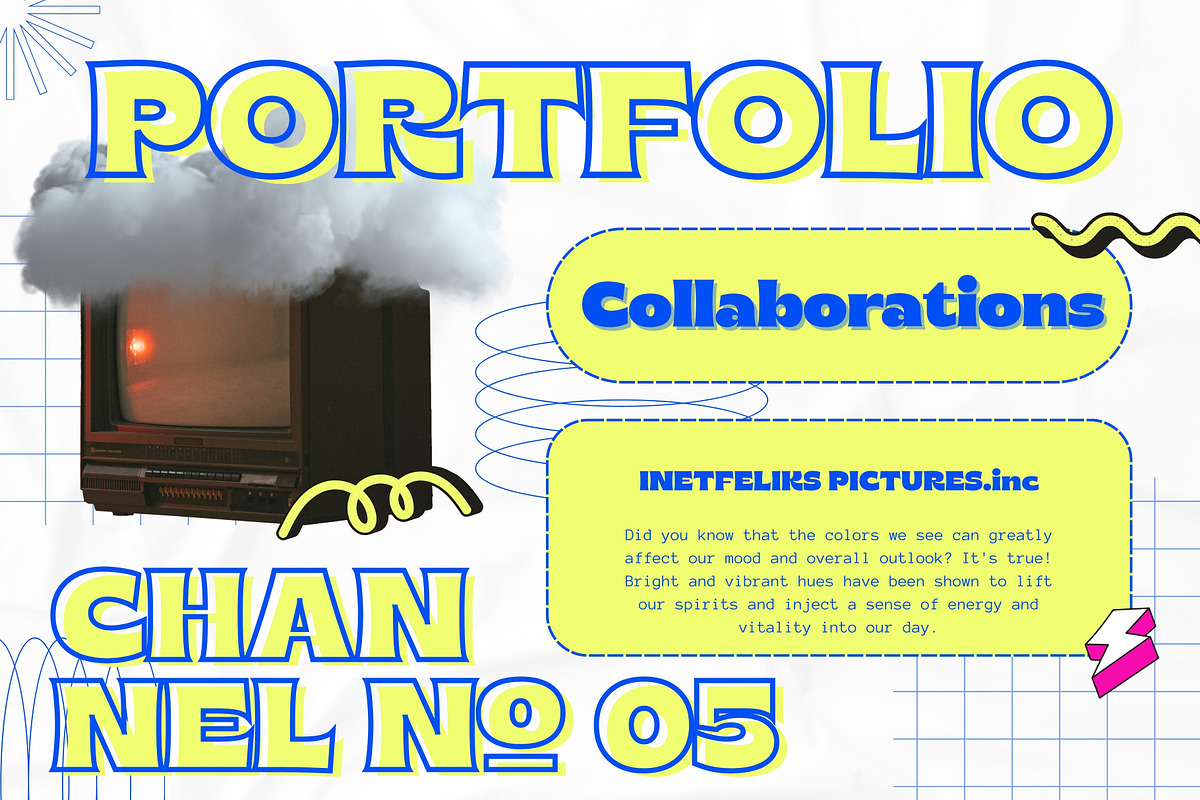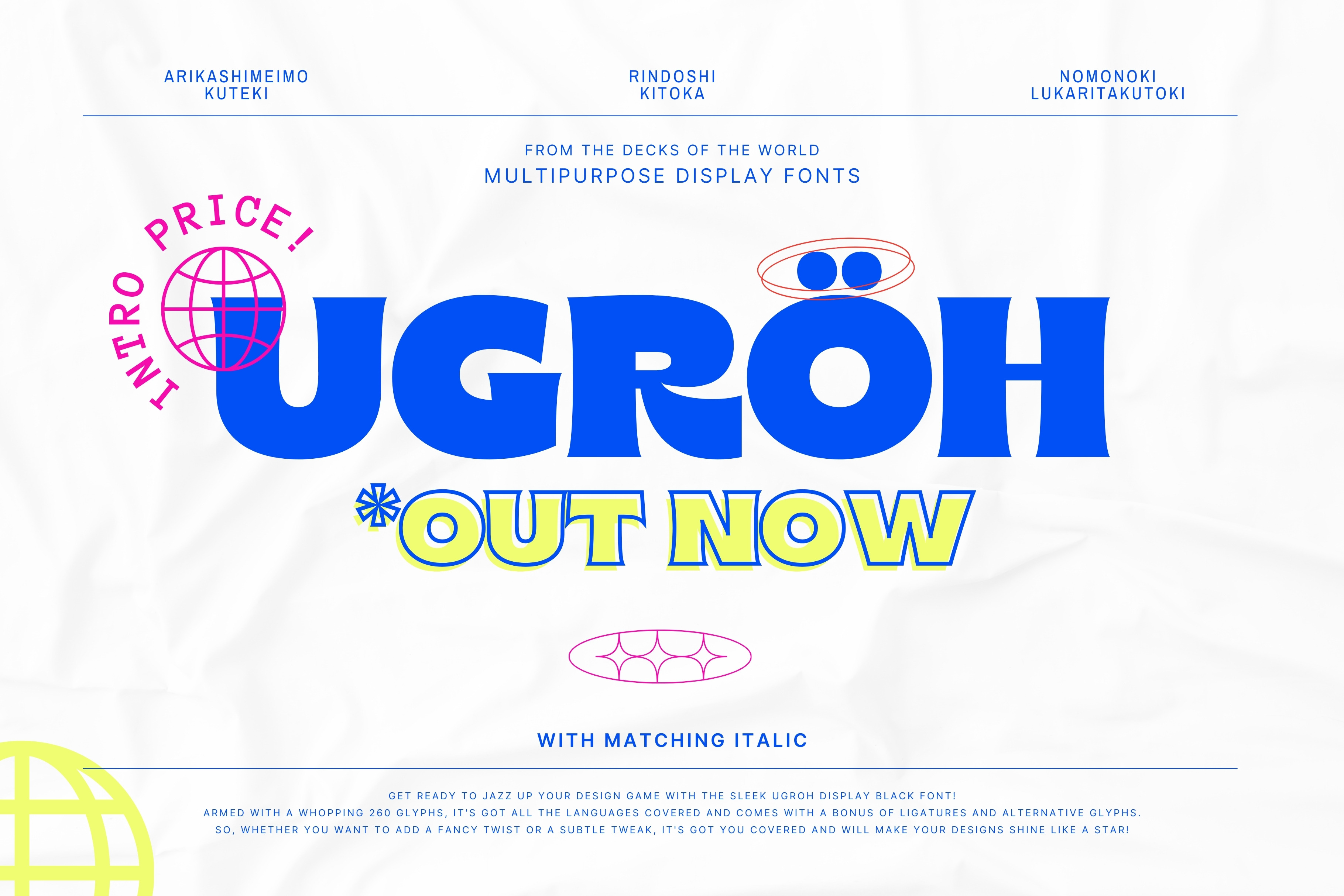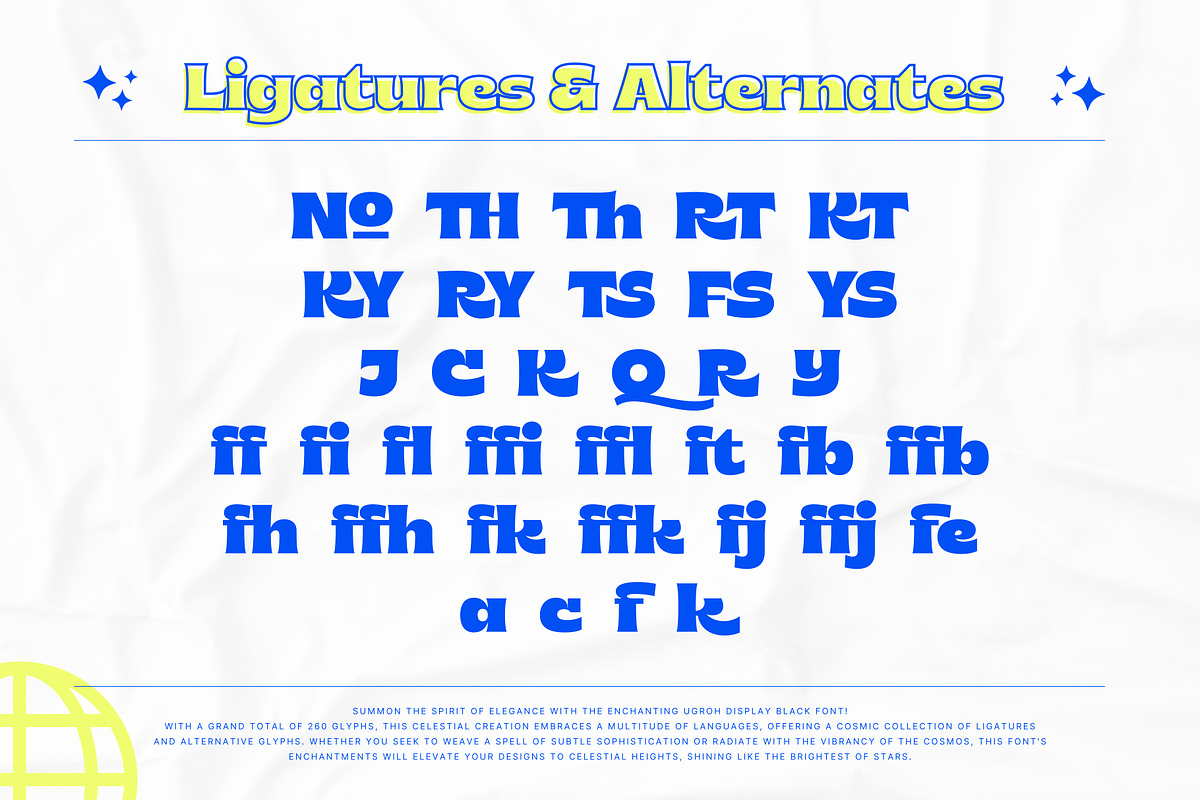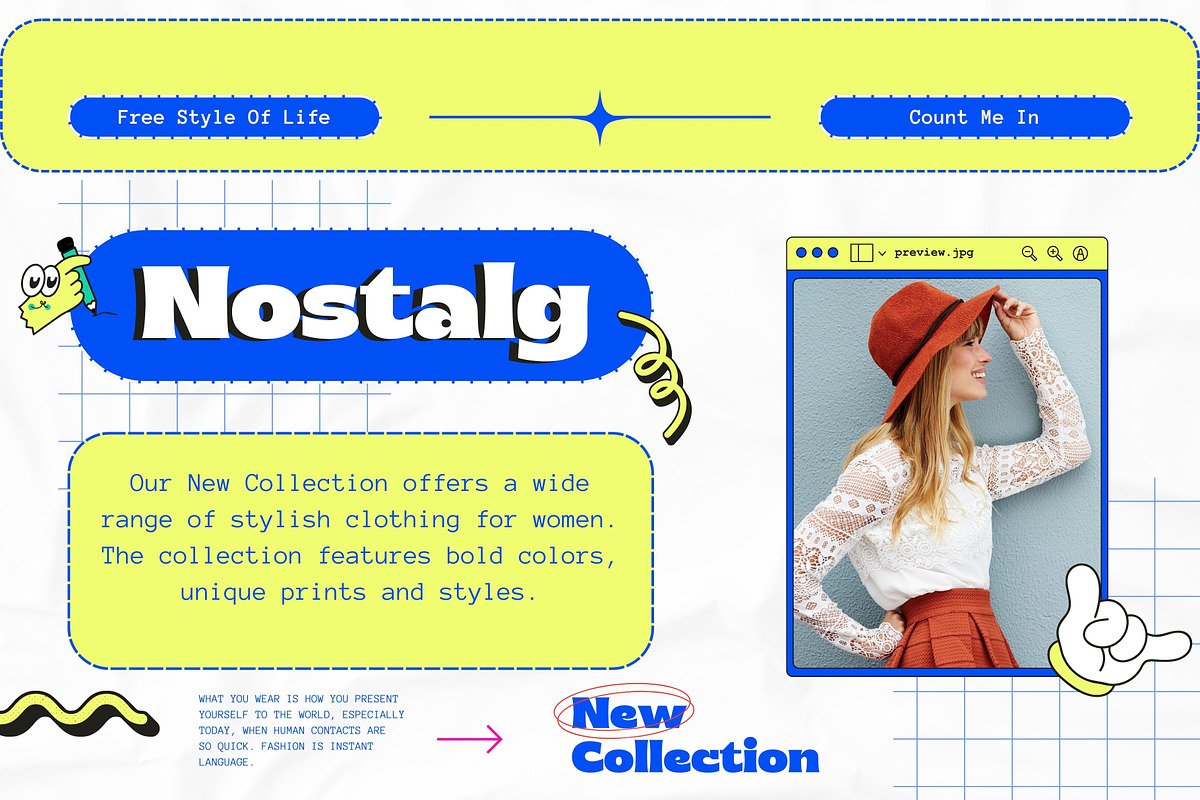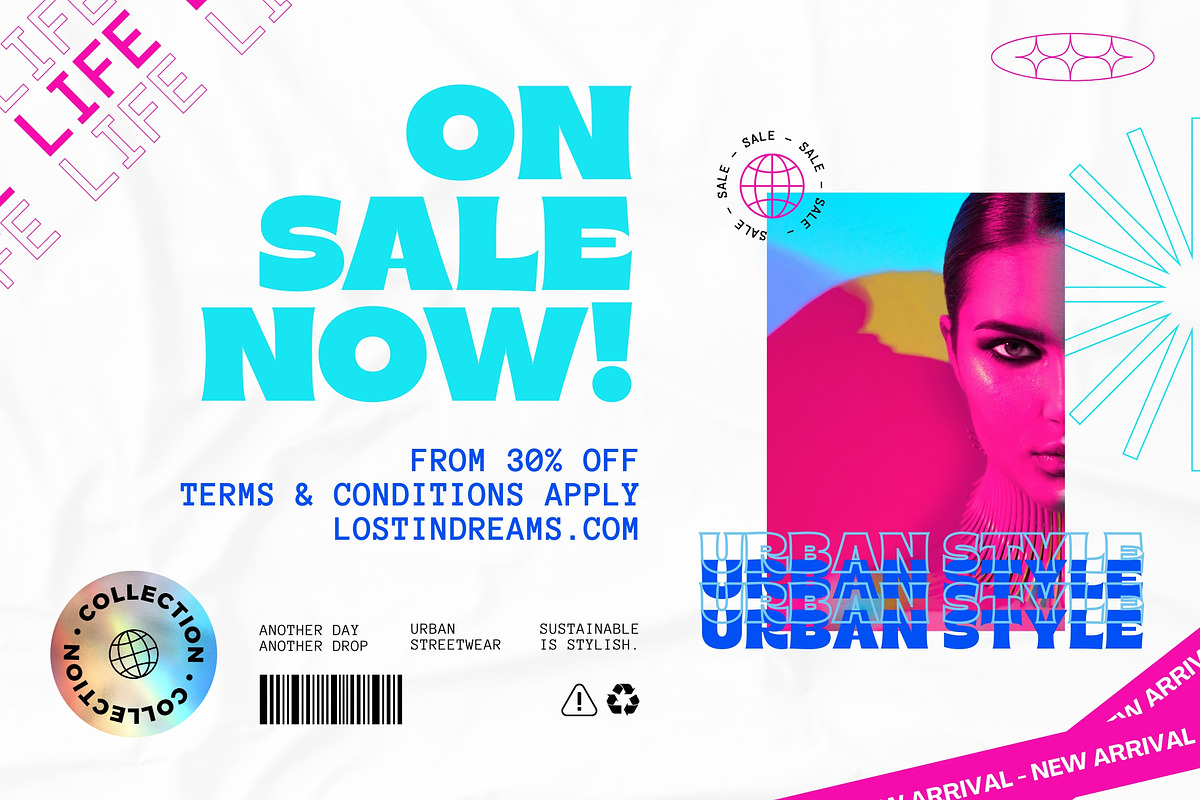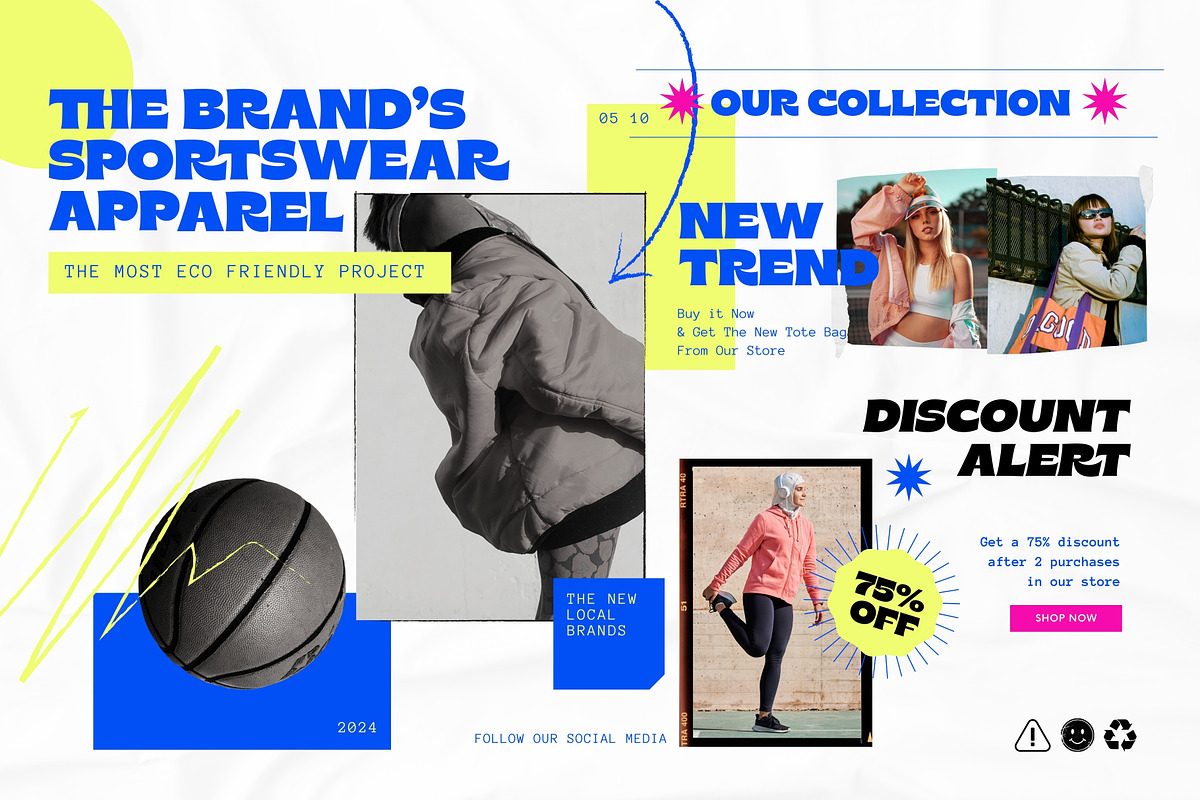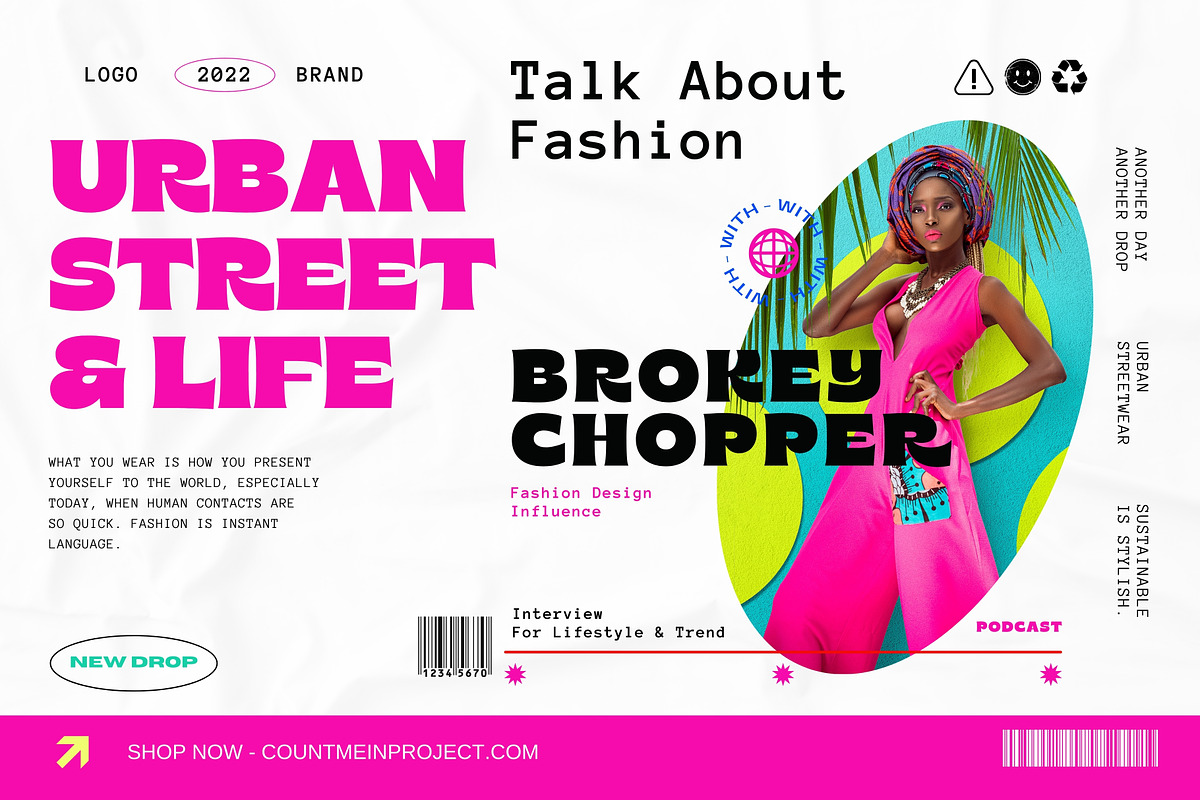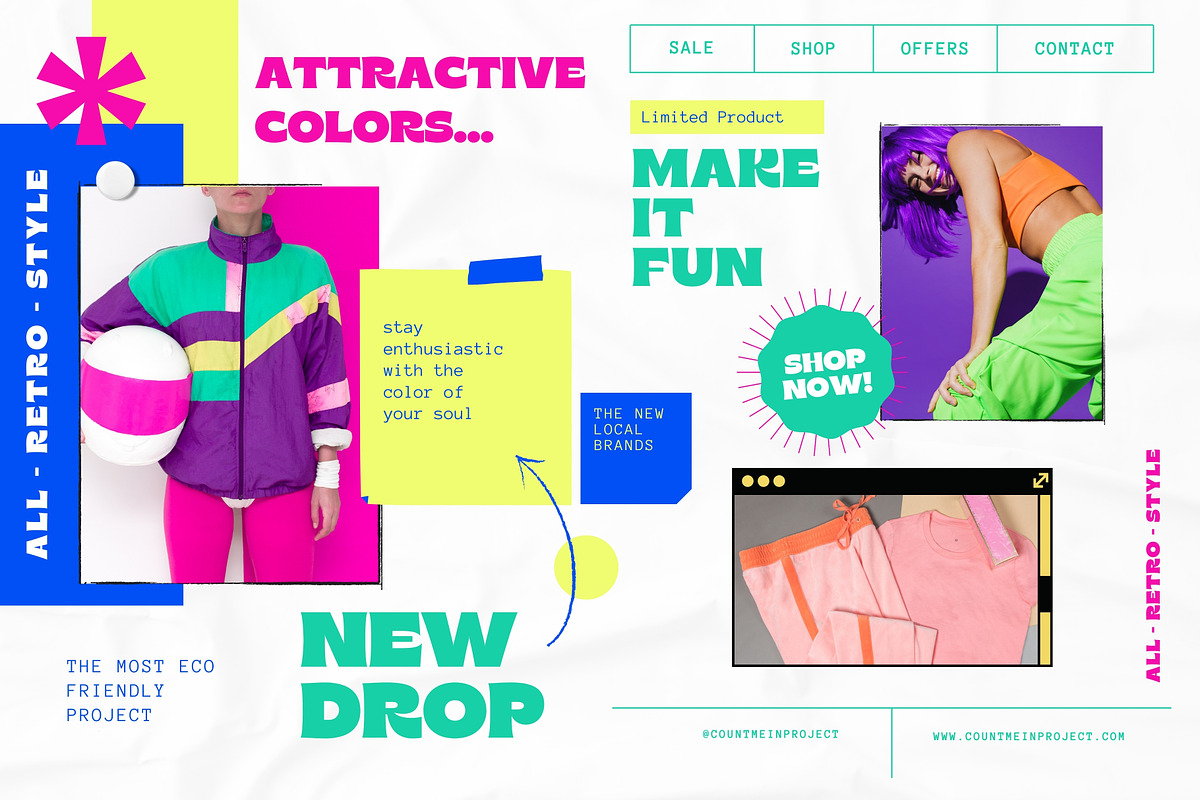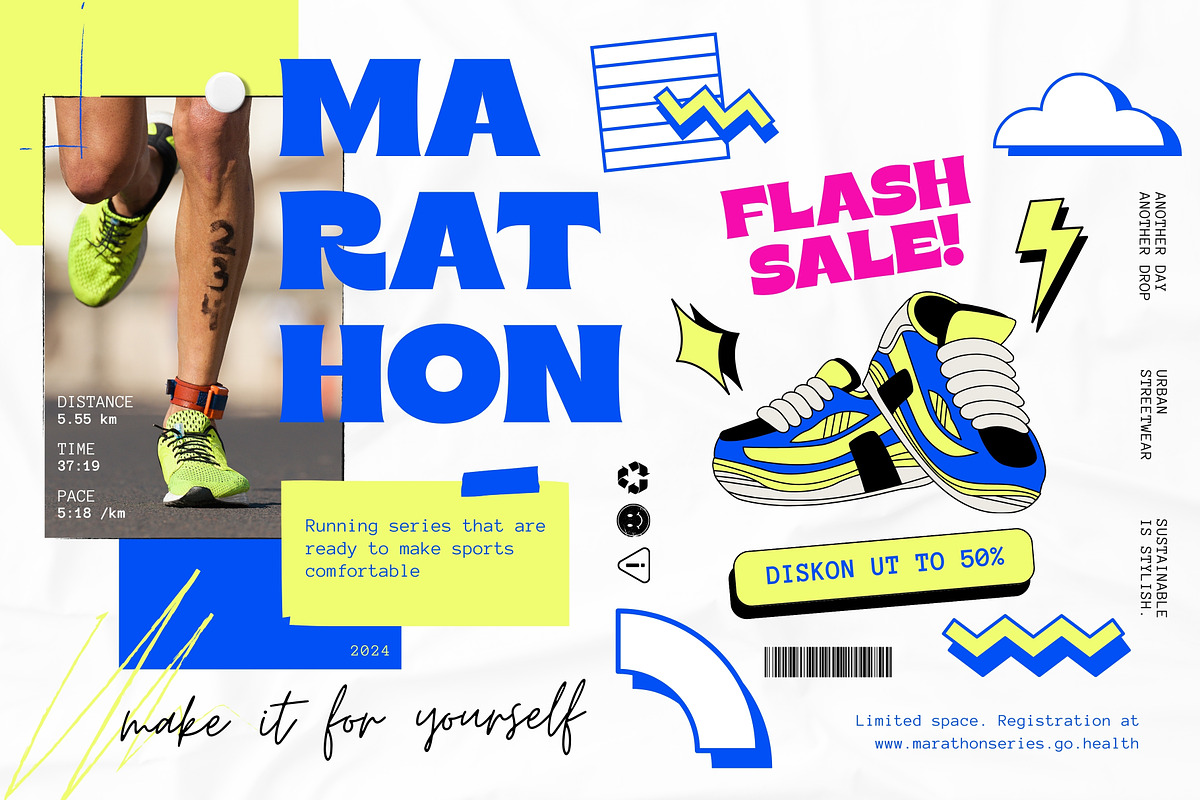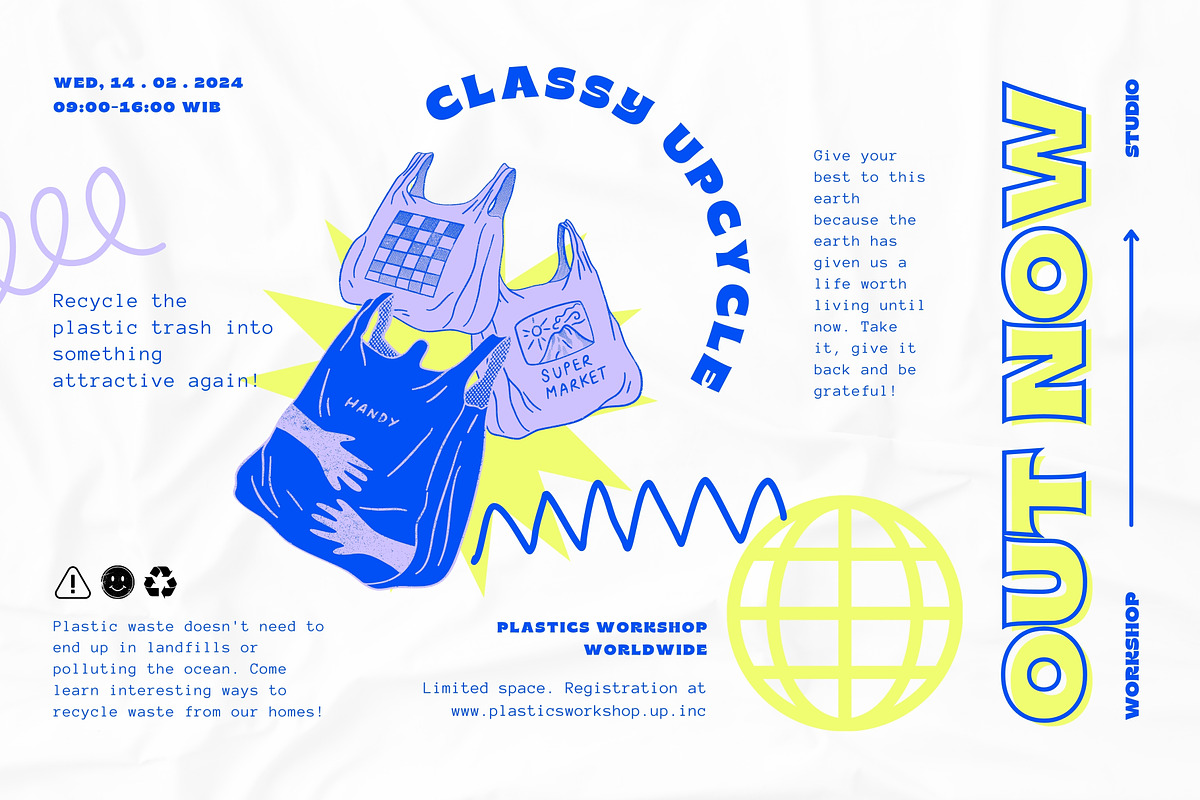
Ugroh Black - BOLD Fonts
Get ready to jazz up your design game with the brave Ugroh Display Black font include Italic!
Armed with a whopping 260 glyphs, it's got all the languages covered and comes with a bonus of ligatures and alternative glyphs. So, whether you want to add a fancy twist or a subtle tweak, it's got you covered and will make your designs shine like a star!
With its bold and modern look, Ugroh Display Black font is a perfect choice for any design project that requires a touch of elegance. Its clean lines and sharp edges will give your designs a professional look that will impress any audience.
Whether you're creating a logo, a poster, or a website layout, Ugroh display black font will give your project a unique and stylish look. Its versatile character set makes it a great choice for a variety of design styles, from minimalistic to ornate.
And with its extensive language support, you can be sure that your message will be heard loud and clear, no matter where your audience is located.